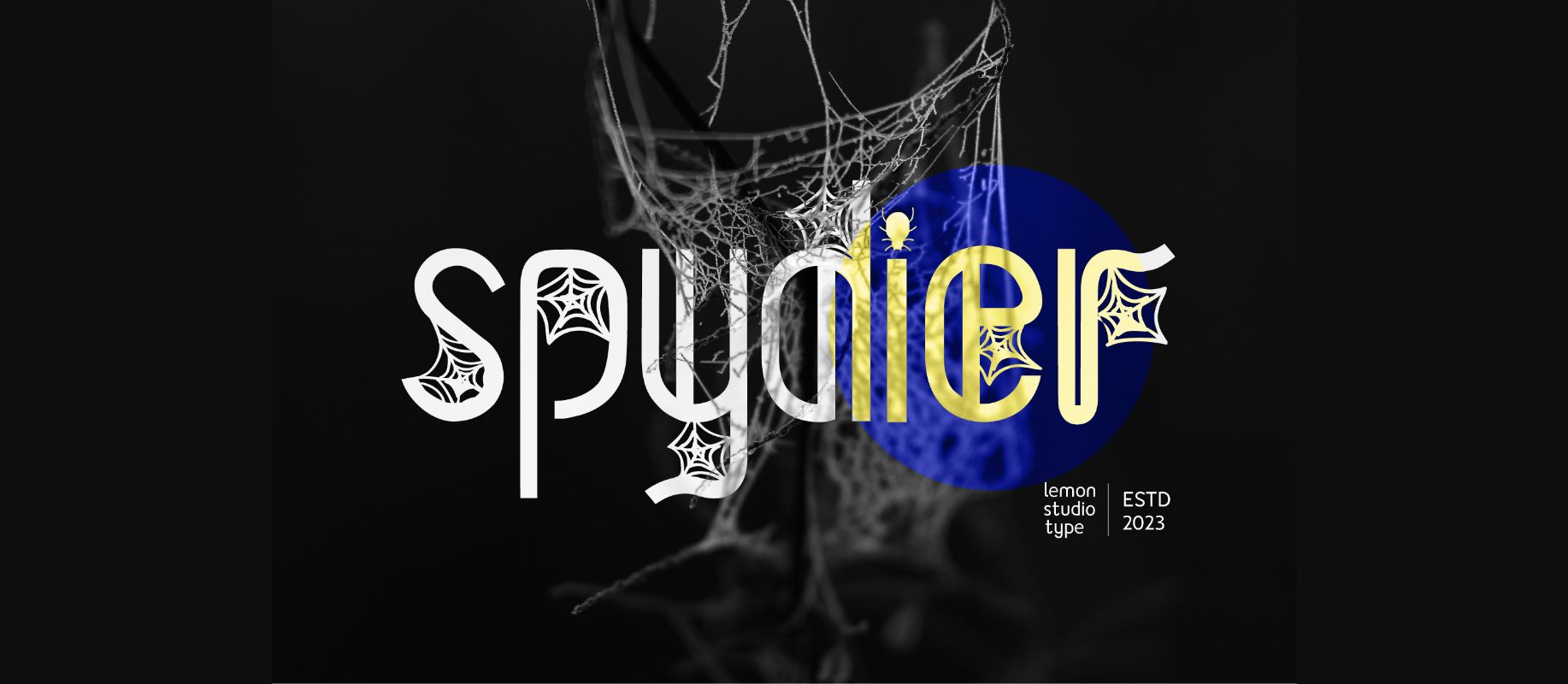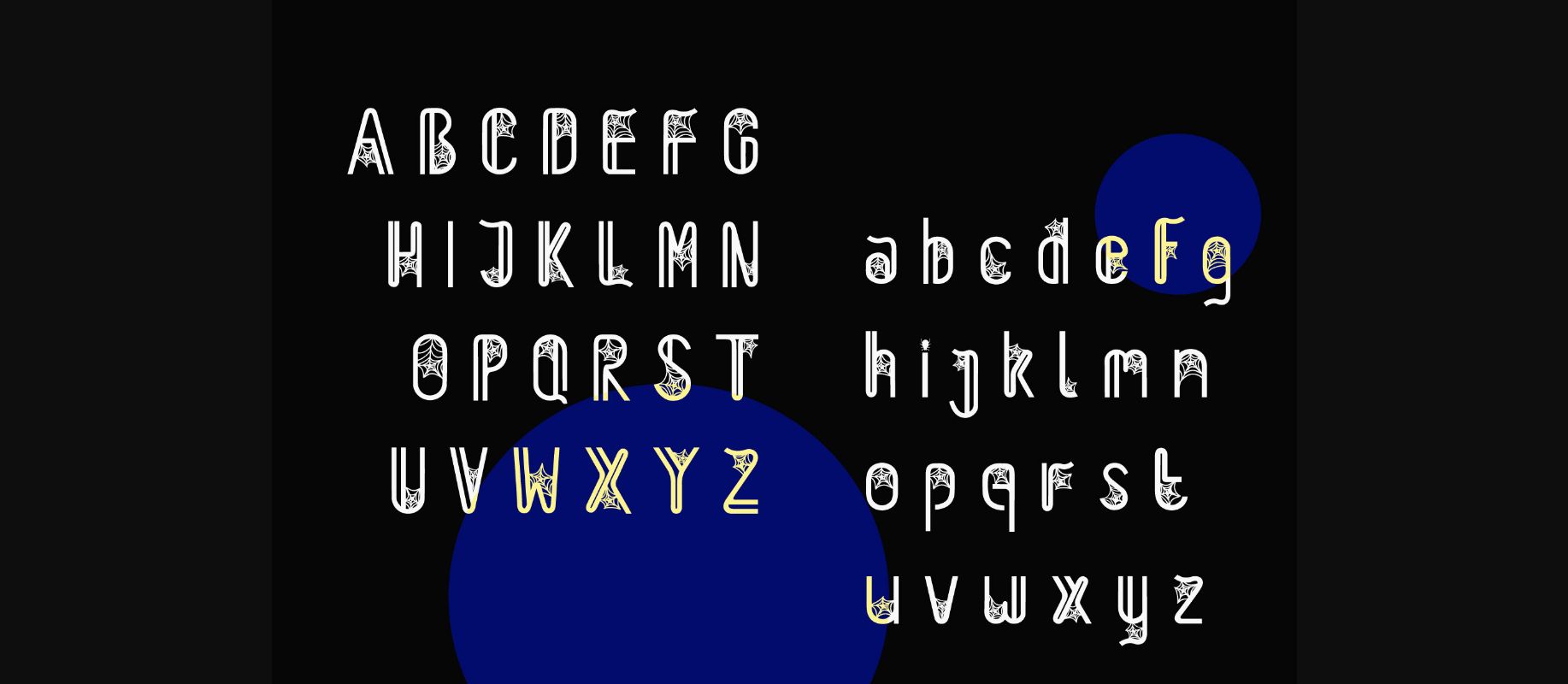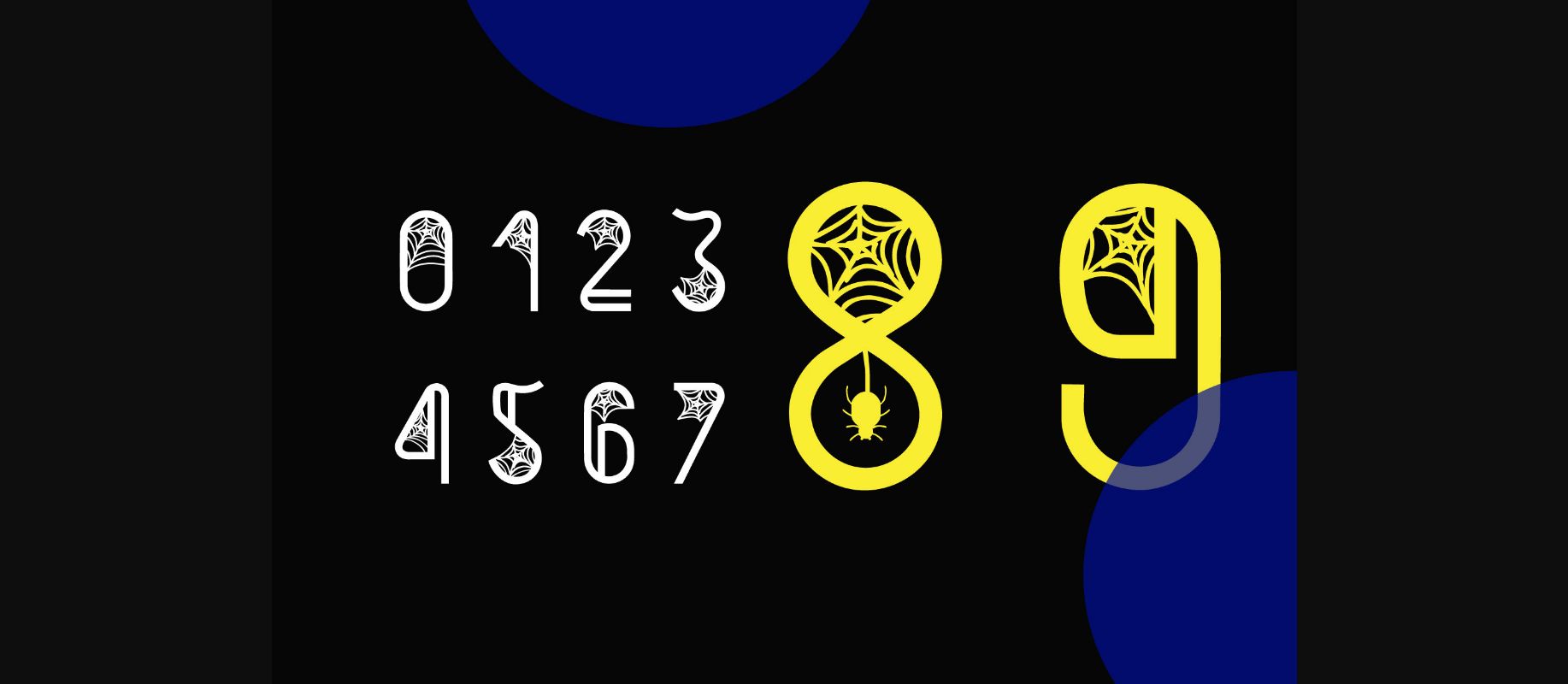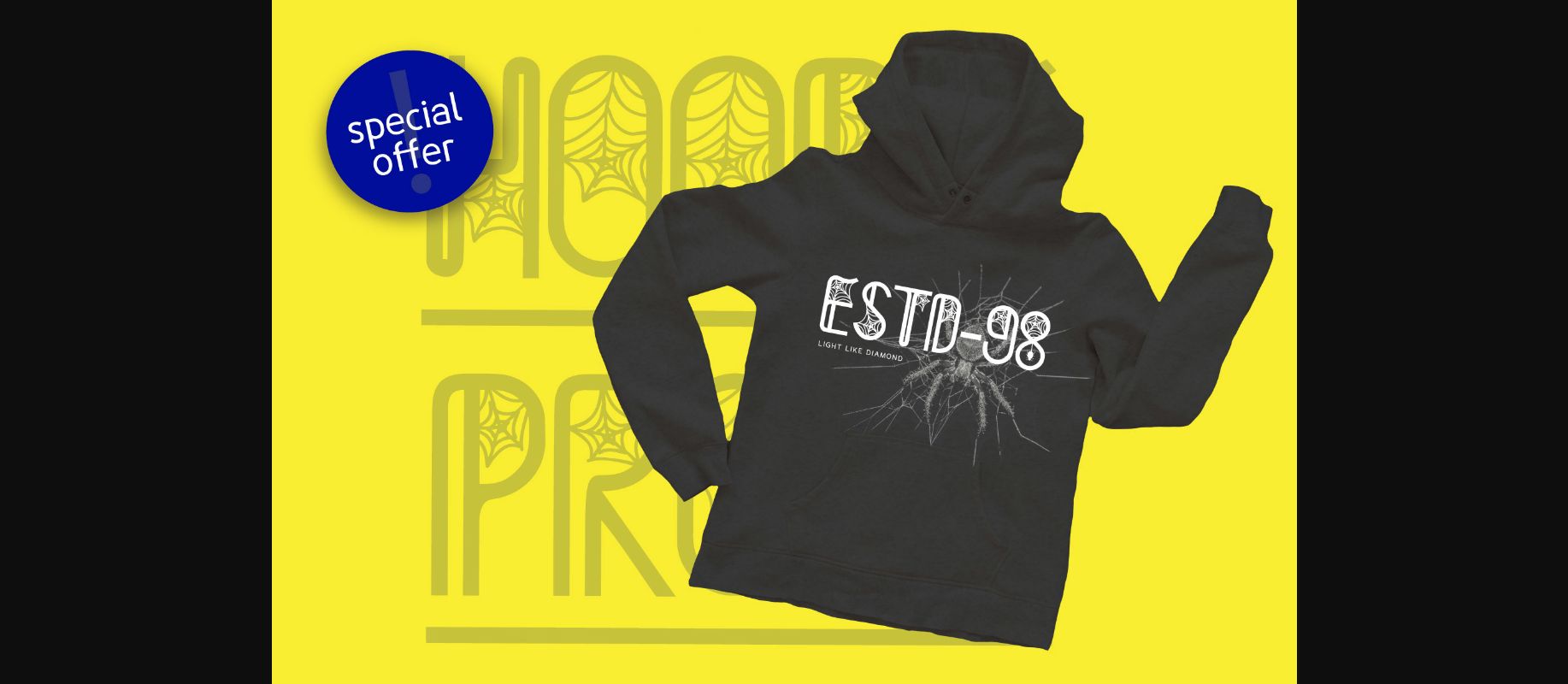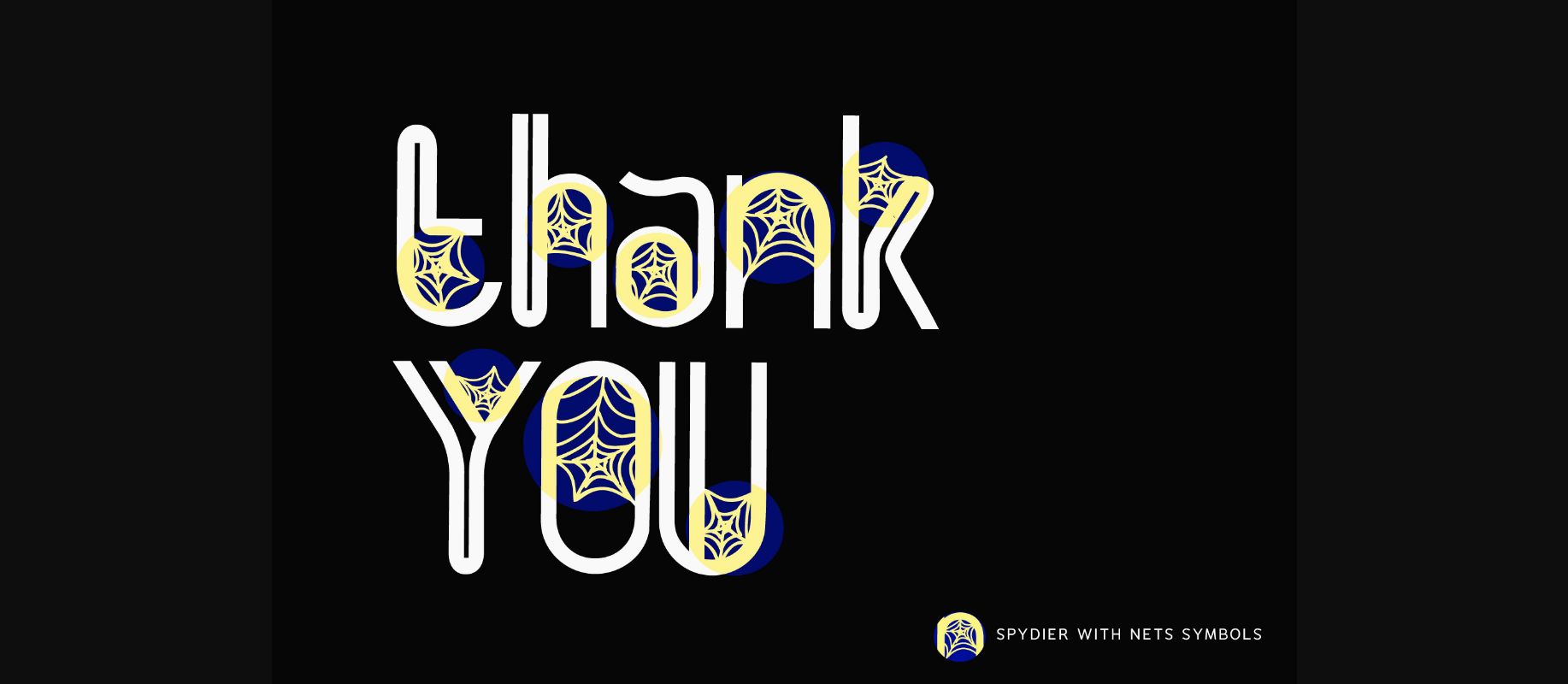
HomeDecorative FontsSpydier Font Decorative Fonts Spydier Font FacebookXPinterestWhatsApp 1 of 7 ... Spydier Font Poster 2... Spydier Font Poster 3... Spydier Font Poster 4... Spydier Font Poster 5... Spydier Font Poster 6... Spydier Font Poster 7... About Spydier Font Spydier is a cool decorative font, full of spider nets. Hypnotizing and perfect for you to use in your design projects that require a unique accent. DOWNLOAD NOW People also explored Special Flower Font Font Twelve Good Kayrie Moustier Font Fresh Night Font Fanttikha Font Fancy Hearts Font Something Font Magic Rainbow Font 331 0 TagsSpydierSpydier Font Previous articleLucky Gnome FontNext articleBaby Rose Font LEAVE A REPLY Cancel reply Comment: Please enter your comment! Name:* Please enter your name here Email:* You have entered an incorrect email address! Please enter your email address here Website: Save my name, email, and website in this browser for the next time I comment. Personal Use Free Rembank Personal Use Free Read more about this font Victorian Ornaments Personal Use Free Read more about this font Starting Live Personal Use Free Read more about this font Dacquoise Personal Use Free Read more about this font BLOG Using Fonts in Digital Marketing: Tips to Strengthen Your Brand Identity In the realm of digital marketing, every visual element plays a crucial role in shaping a brand's identity, and fonts are no exception. The... Best Fonts for YouTube Videos: Make Your Thumbnails Stand Out The 10 Best Handwriting Fonts to Add Personality to Your Designs How to Install and Use Fonts on Windows, macOS, and Web Projects